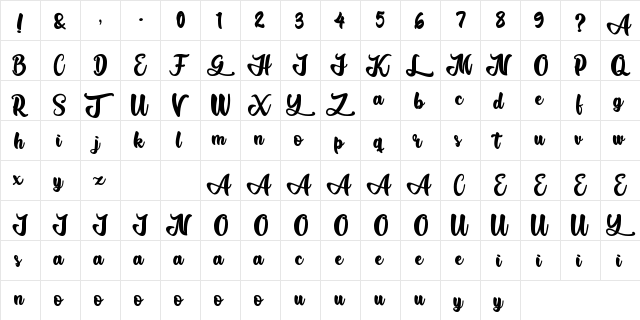
Aliando Rocky Regular
| Foundry | Kotak Kuning Studio |
Aliando Rocky is a composed and adaptable typeface that performs quietly and consistently across a wide range of design contexts.